Windsor & Neue Kabel Font Pairing
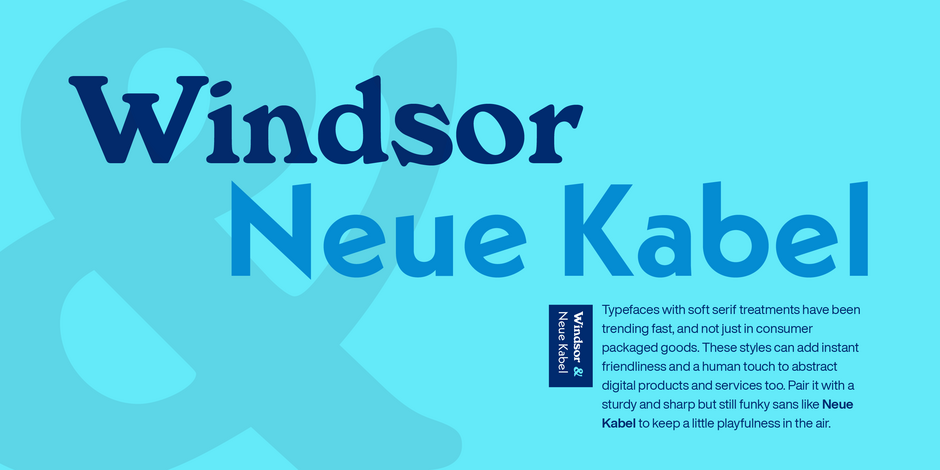
Windsor is a bold face with heavy rounded serifs and strong diagonal stress. Capitals “M” and “W” are widely splayed, “P” and “R” have very large upper bowls. The Lowercase “a”, “h” “m” and “n” of the Windsor font have angled right hand stems, “e” has an angled cross-stroke. The overall effect is one of friendliness and warmth. Use the Windsor font in advertising, on posters and for general display work.
Neue Kabel maintains the spirit and structure of a 21st century design. Text copy set in Neue Kabel echoes the elegance and playfulness, while delivering the versatility to shine in a wide variety of hardcopy and interactive environments.